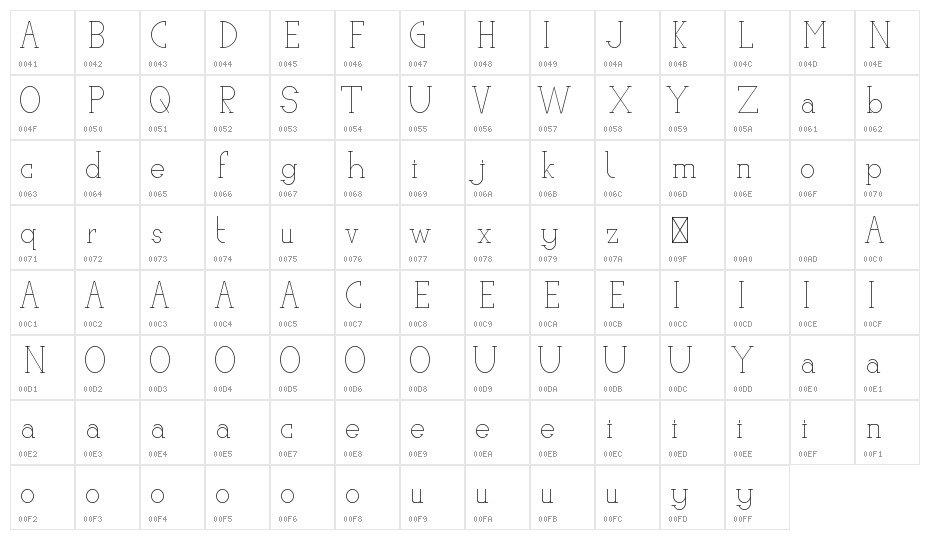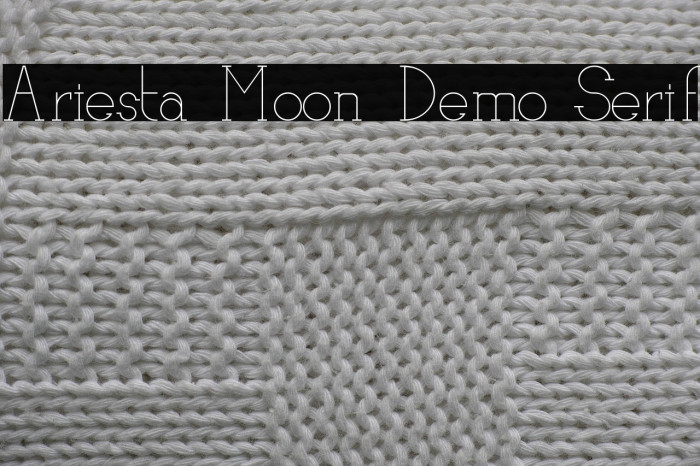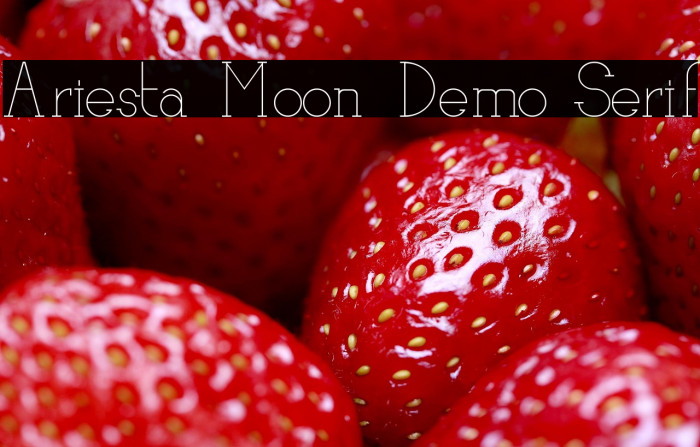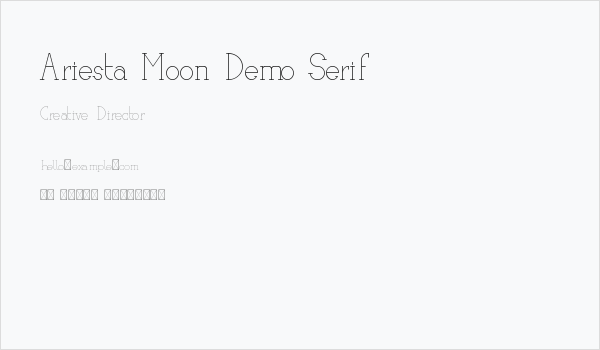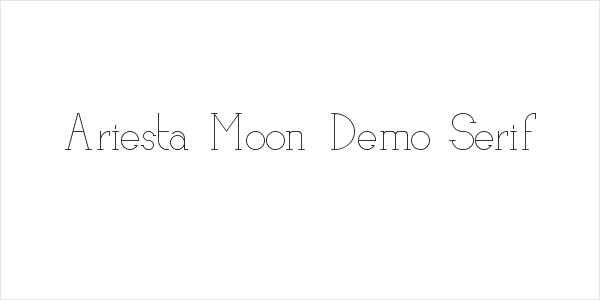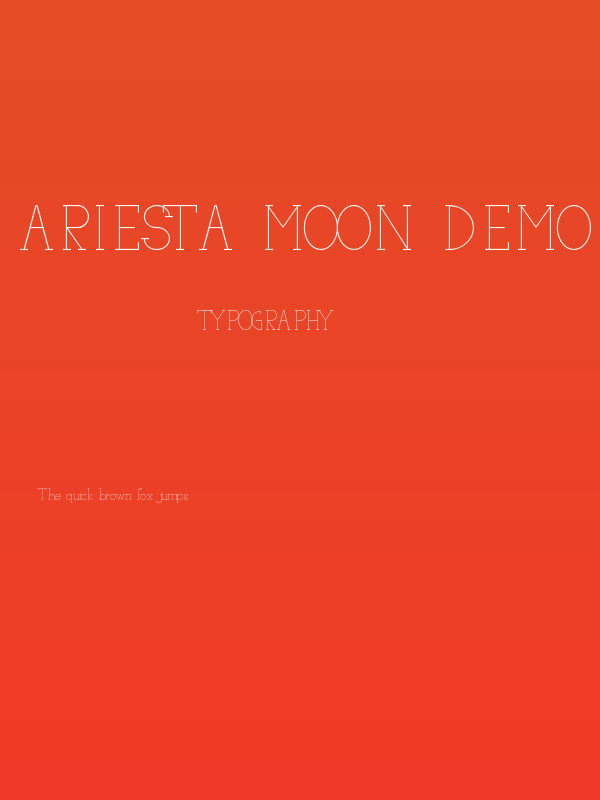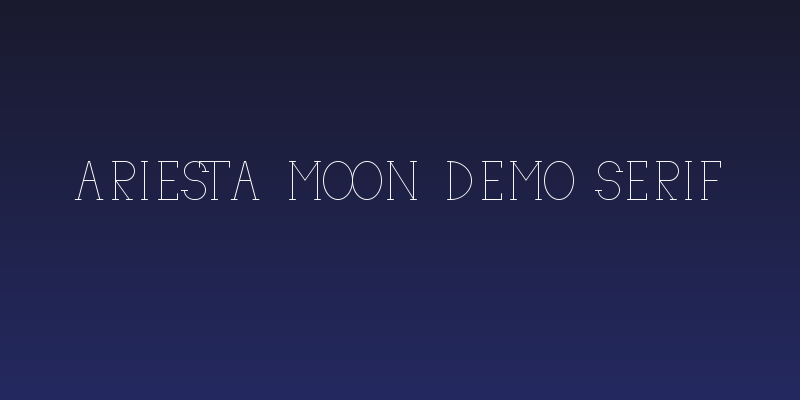
Ariesta Moon Demo Serif Font
Ariesta Moon Demo Serif Description
This font exhibits a modern and elegant serif style, characterized by its thin, elongated strokes and minimalistic design. The uppercase letters are tall and slender, with a distinct geometric influence that adds a contemporary touch. The lowercase letters maintain a consistent height, offering a harmonious balance between the characters. The serifs are subtle yet pronounced, providing a classic feel without overpowering the overall modern aesthetic. The font's clean lines and open spaces make it highly legible, while its unique style ensures it stands out in any design. The numerals and special characters are crafted with the same attention to detail, ensuring consistency across all elements.